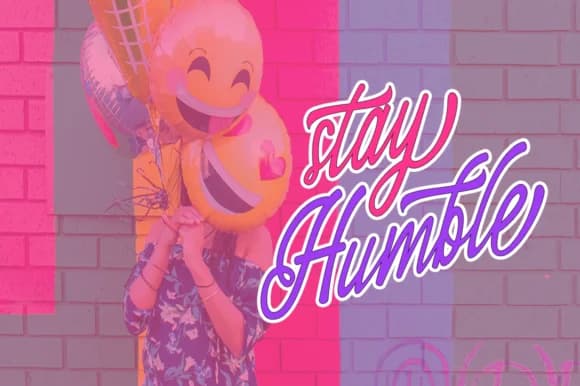
1 / 7About Syakira Script Font by utopiabrand19 Font
This script feels intimate and effortless, like a handwritten note from someone who knows their way around a pen. Syakira Script Font, designed by utopiabrand19, brings exactly that kind of personal, flowing energy to your design work. It strikes a balance between modern and organic, staying light enough to feel graceful while maintaining excellent readability and visual presence throughout.
Wedding invitation suites benefit deeply from this font's elegant touch, as do formal thank-you card designs that need genuine warmth and personality. Boutique product labels and specialty packaging look far more refined when set in Syakira. Social media graphics for small businesses, personal branding projects, and event announcements all gain a thoughtful, human quality from its flowing lines and natural rhythm. The bold, confident swashes provide distinctive character without ever feeling overwrought or difficult to read. What makes this typeface particularly useful is how the authentic handwritten qualities keep it from looking sterile, while the modern construction ensures it works effectively in contemporary design contexts.
Pair it with a clean, minimal sans-serif when you need body copy alongside it, allowing both typefaces to breathe and maintain strong readability. Find it on Creative Fabrica and let it bring that personal touch to your next project.
Syakira Script Font by utopiabrand19 Font is a script font that shines as a display or heading face. Pair it with a clean sans-serif or serif font for body text β the contrast creates a clear hierarchy while the two styles stay balanced and easy to read.